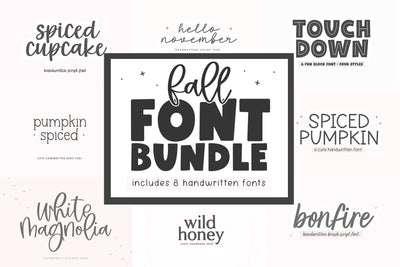
Fall Font Bundle - 8 Fonts for Crafters
This fall font bundle include 8 handwritten fonts!
Fonts Included
- Spiced Cupcake
- White Magnolia
- Hello November
- Spiced Pumpkin
- Bonfire
- Pumpkin Spiced
- TouchDown
- Wild Honey